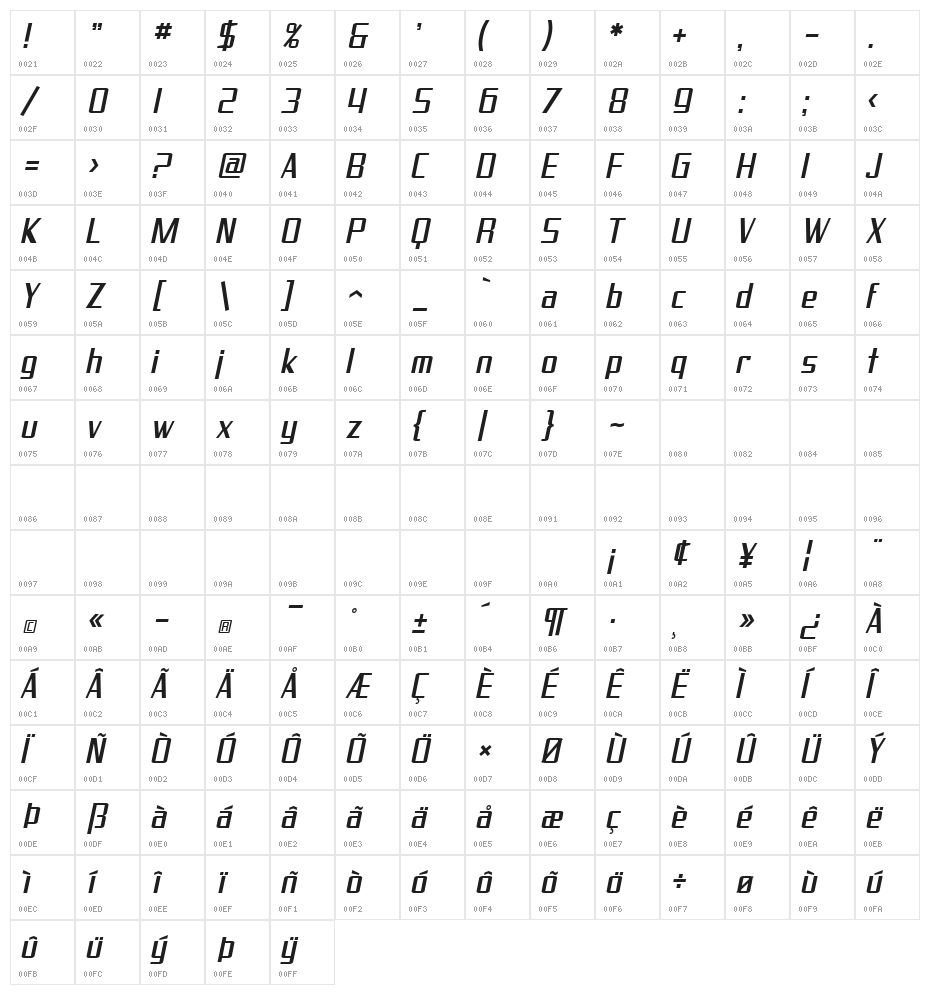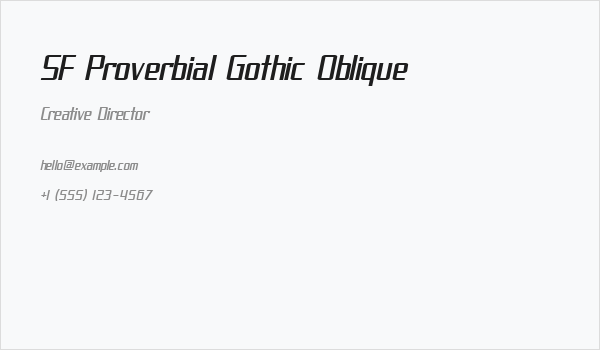
SF Proverbial Gothic Oblique Font
SF Proverbial Gothic Oblique Description
This font exhibits a modern, sleek design with a distinct oblique slant, giving it a dynamic and forward-moving appearance. The characters are crafted with precision, featuring sharp angles and clean lines that convey a sense of speed and efficiency. The uppercase letters are tall and narrow, while the lowercase letters maintain a consistent style, enhancing readability. The numerals are equally well-designed, matching the overall aesthetic of the font. Special characters are included, maintaining the same stylistic approach. This font is ideal for projects that require a contemporary and professional look.
| Proposed Projects | Ideal for branding, advertising, sports-related designs, and technology-focused projects. |